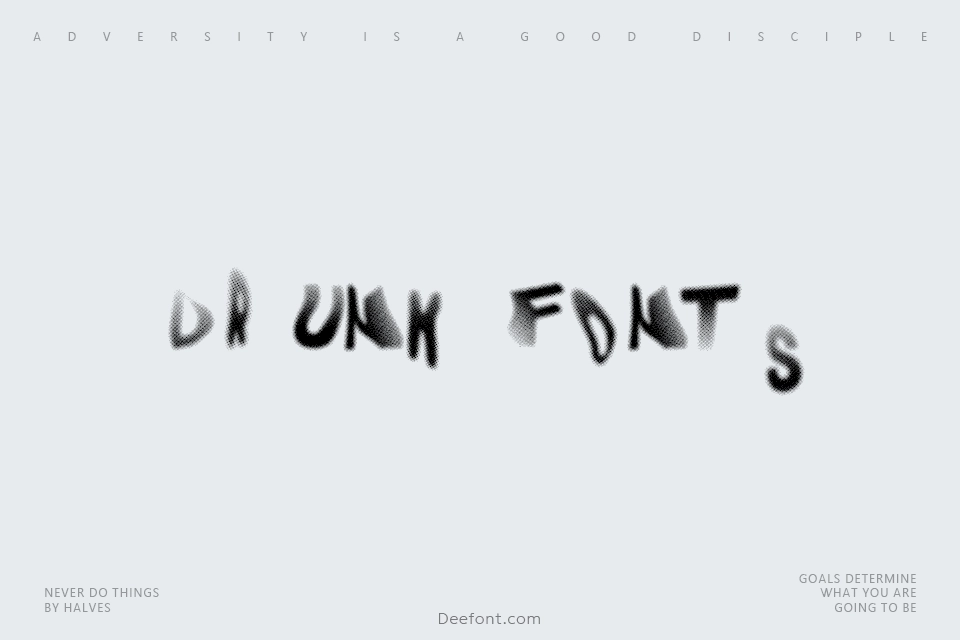
Drunk Fonts Font
Drunk Fonts is a playful and whimsical display typeface that simulates the visual effects of alcohol on perception. This distorted and artistic font features uneven, wobbling letterforms with brush-like textures and varying stroke widths, creating a dynamic and lively appearance. The irregular characters lean and shift, giving an intentional sense of inebriation and creative chaos. Ideal for bold, edgy designs that require humor and personality, Drunk Fonts excels in posters, greeting cards, logos, and artistic branding materials where unconventional and expressive typography stands out.